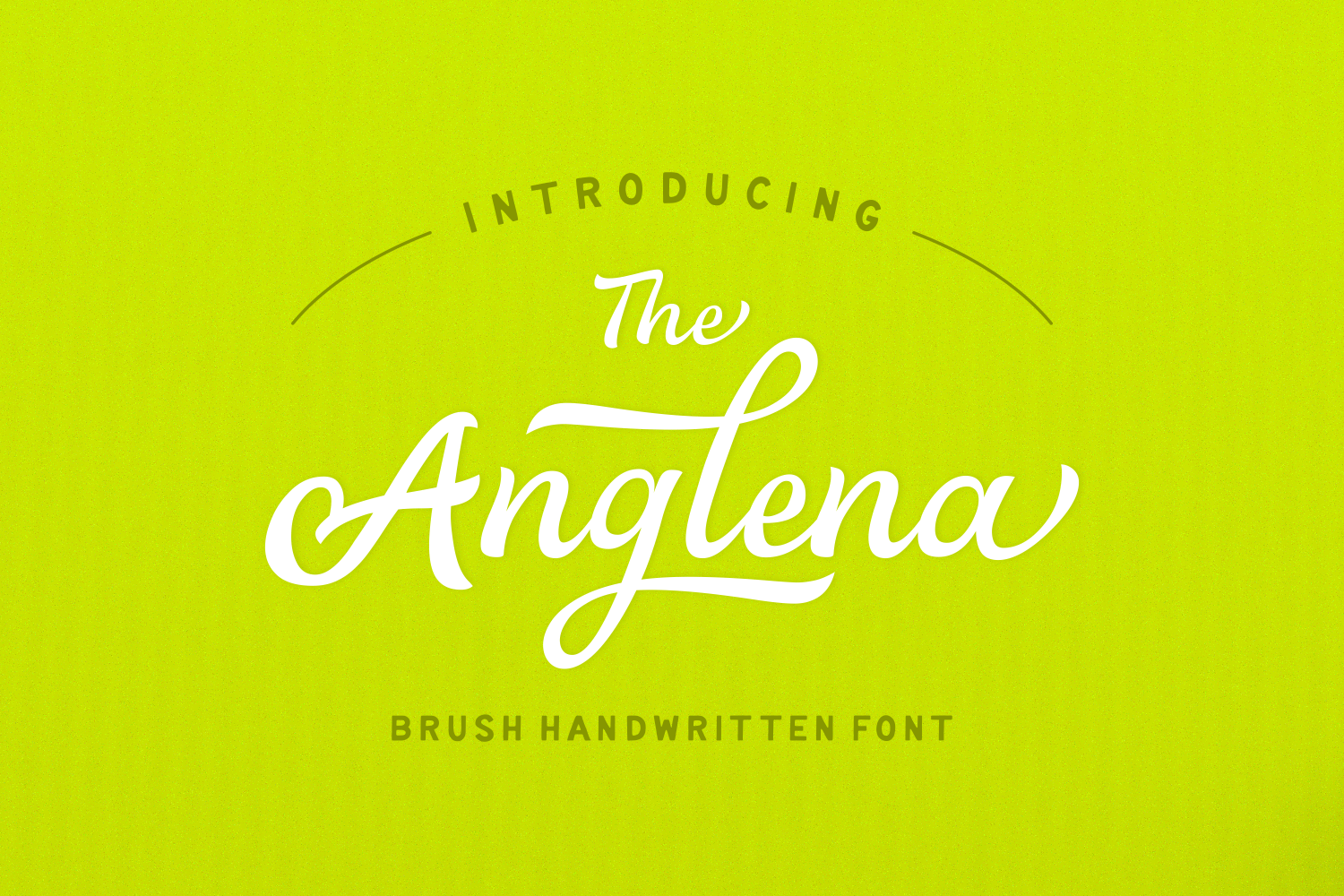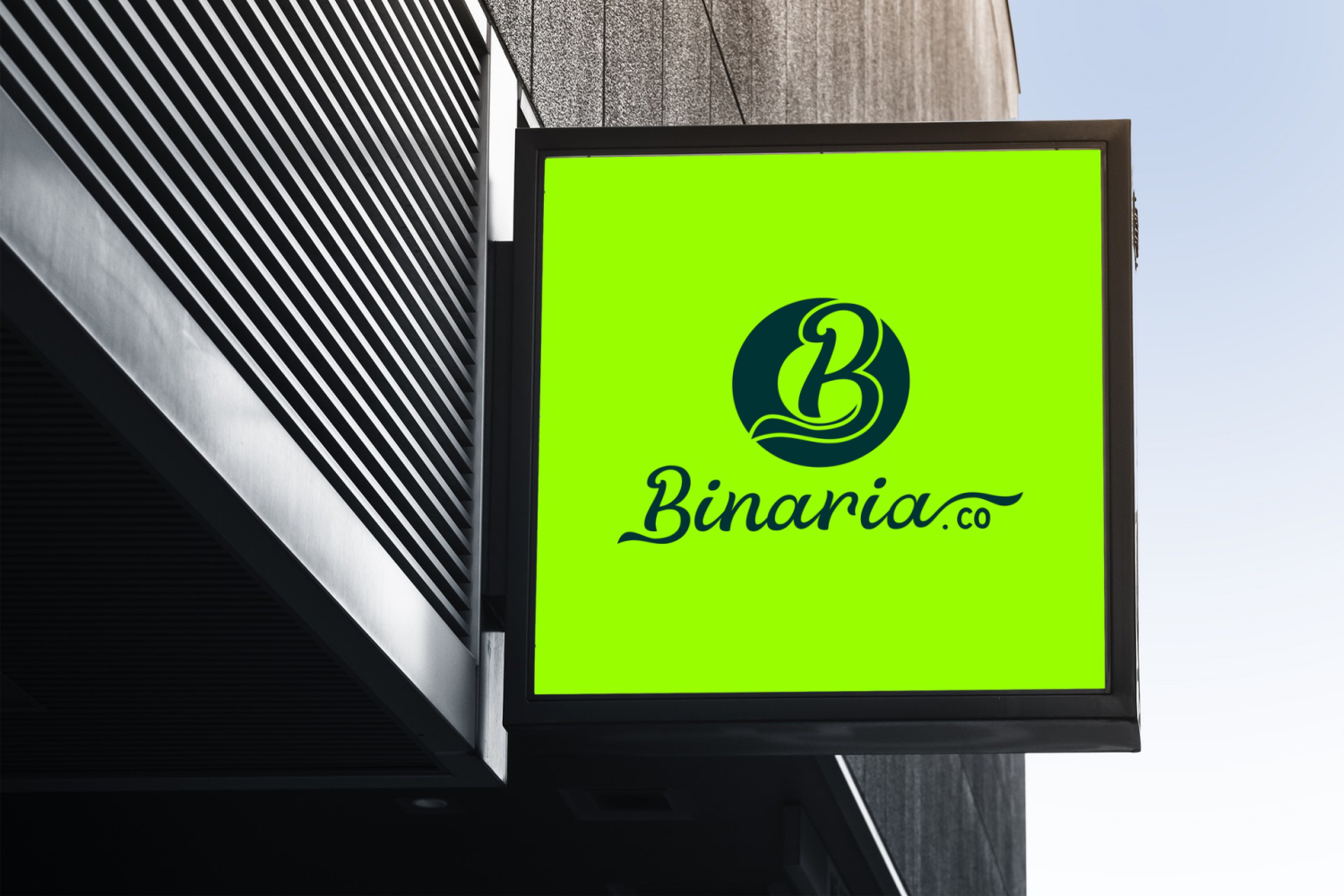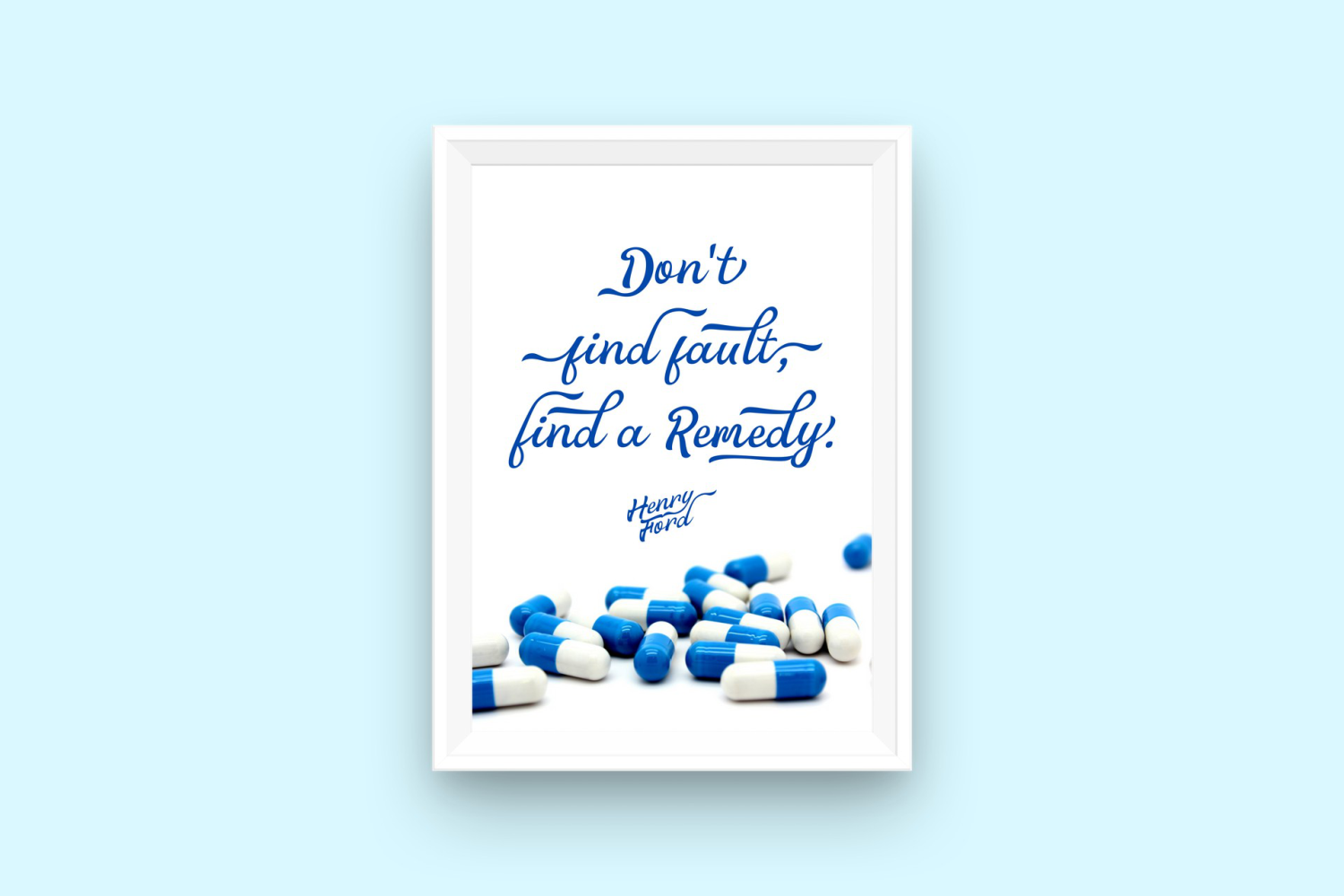
Anglena Font
About Anglena Font
Anglena is a gorgeous, swashy script font that is ideal for a wide range of creative project types; this font looks stellar in bright, modern scapes.